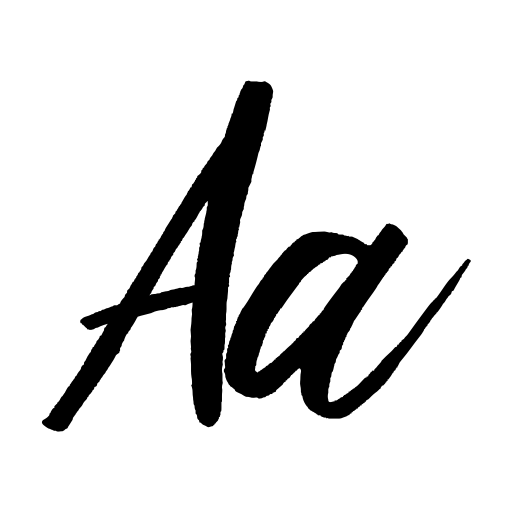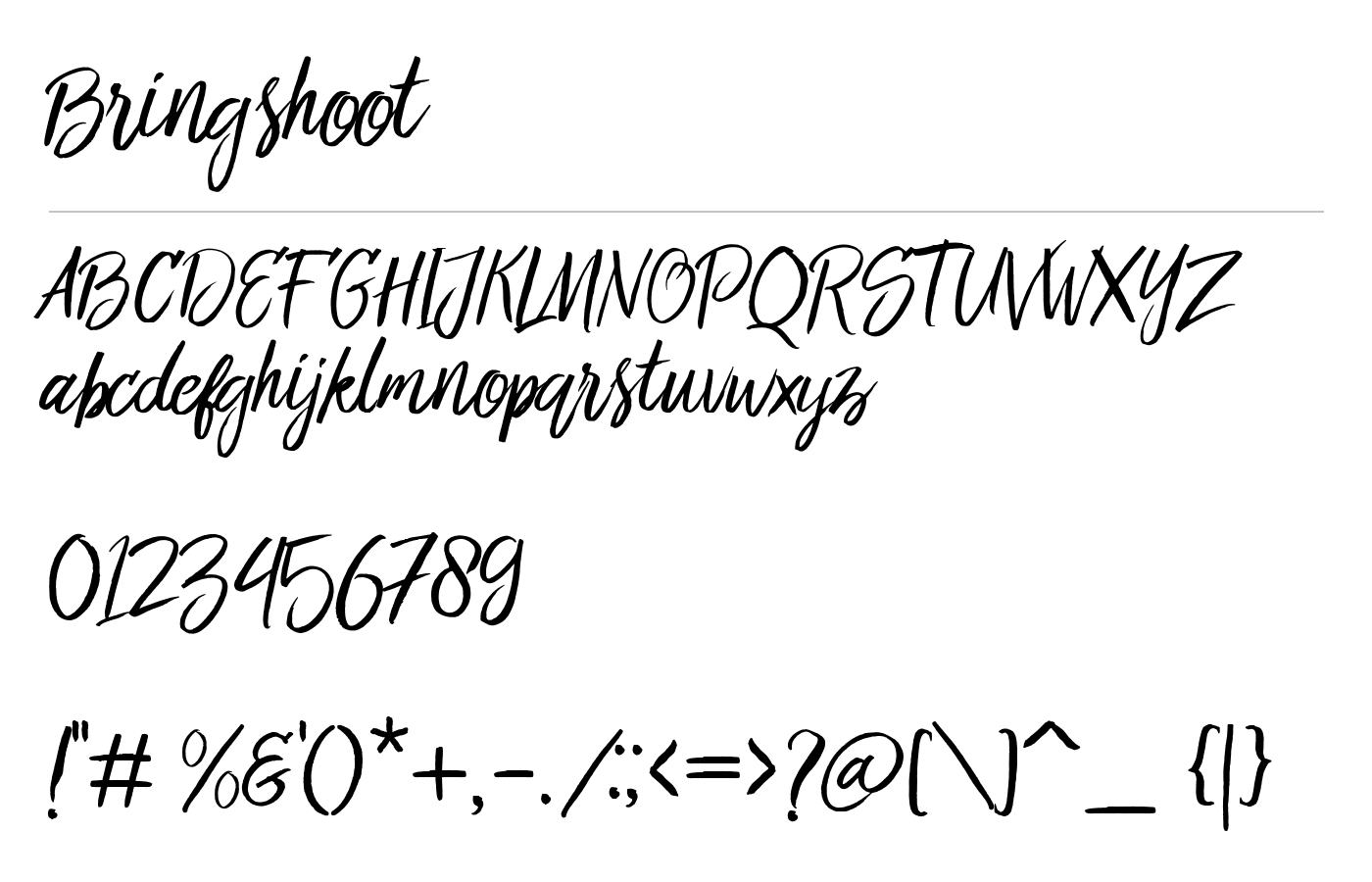
Bringshoot is a lively and expressive script font that mimics natural handwriting with a casual yet elegant flair. Its narrow, slightly slanted letterforms with smooth, flowing strokes create a modern and personable vibe, making it perfect for creative projects, branding, and invitations that want to convey warmth and personality. This font works well in headlines and logos where a unique, handcrafted style adds charm and energy.
Bringshoot Font